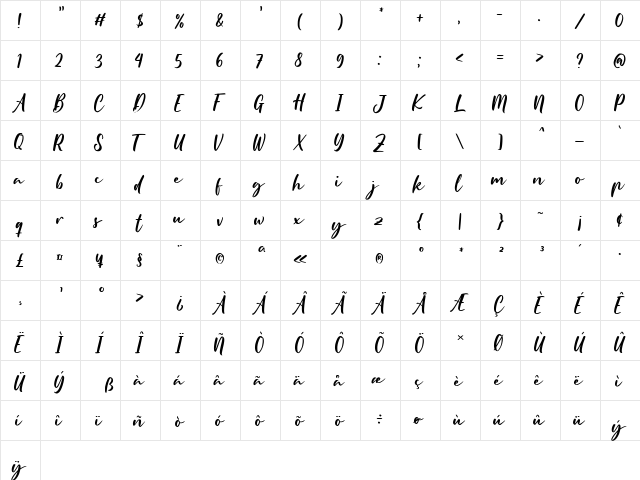
Hoffermond Regular
Design Context for Hoffermond Typeface
Hoffermond is a composed and adaptable typeface that performs quietly and consistently across a wide range of design contexts.